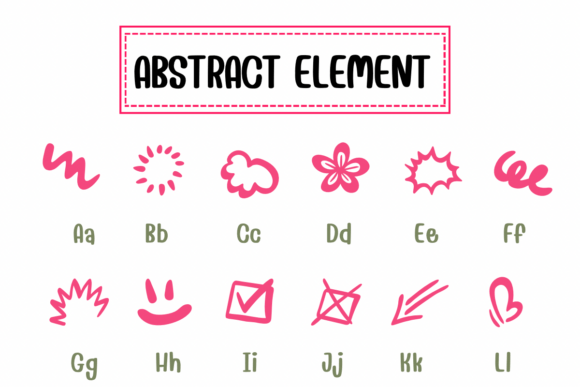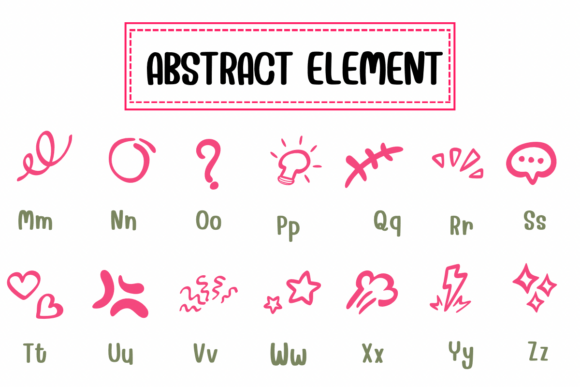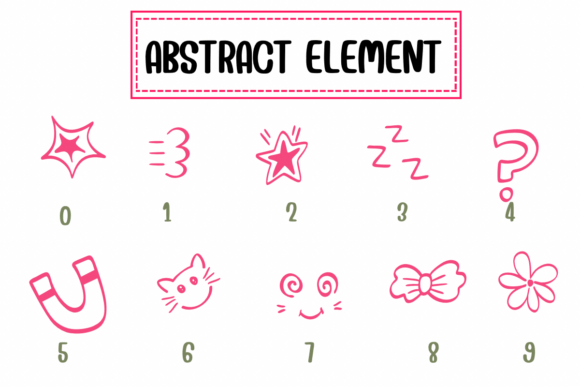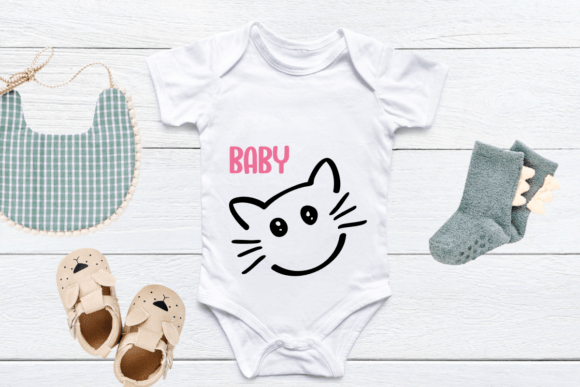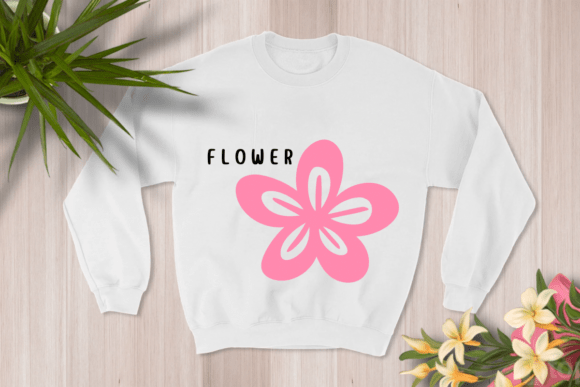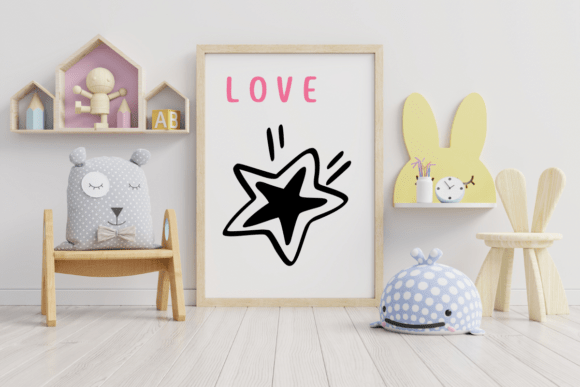
Unlocking Creativity with the Abstract Element Font
Have you ever stared at a blank canvas, trying to come up with the perfect design for your next creative project? The blank page can be daunting, but what if you had a tool that could spark your imagination and bring your ideas to life? For designers and crafty individuals, the right font can be the missing piece that elevates their projects from ordinary to extraordinary.
Enter the Abstract Element Font, a unique dingbats font with an abstract theme that’s perfect for adding a touch of whimsy and personality to your designs. This versatile font is ideal for wedding invitations, DIY projects, crafts, decorations, logos, and many other creative endeavors. With the Abstract Element Font, you’ll be able to express your creativity and bring your unique vision to life.
Abstract Element Font Key Features
- Unique Characteristics: Features a unique blend of geometric and organic elements, resulting in a distinctive and eye-catching visual style.
Designer Review: Abstract Element Font
Overall, I think Abstract Element Font is a visually striking choice for digital interfaces. ✨ The unique blend of geometric shapes and abstract forms creates a captivating and modern aesthetic. The font is particularly effective in large-scale applications, such as titles or headings, where its bold and dynamic personality can truly shine.
One of the standout features of Abstract Element Font is its versatility. ✨ It can be used to convey a sense of excitement and energy, while also being sophisticated and refined. The font’s abstract nature makes it easy to pair with a wide range of colors and backgrounds, allowing designers to create a unique visual identity for their projects.
- ⚠️ In smaller text sizes, the font’s complexity can become overwhelming, making it difficult to read. It’s essential to use this font judiciously, reserving it for headings and titles.
- ⚠️ Abstract Element Font may not be the best choice for body text or long blocks of text, as its abstract nature can make it challenging to follow.
Overall, I would recommend Abstract Element Font for designers looking to add a touch of modernity and sophistication to their projects. While it has its limitations, its unique visual identity and versatility make it a valuable addition to any designer’s toolkit.
Tips for Getting the Most Out of the Abstract Element Font
Use the Abstract Element Font to add a touch of sophistication and elegance to your designs. Experiment with different font sizes, colors, and styles to create a unique look.
Combine the Abstract Element Font with other design elements, such as bold colors and geometric shapes, to create a visually striking design.
The Abstract Element Font is ideal for:
- Corporate branding and identity
- Marketing materials, such as brochures and flyers
- Editorial design, such as magazines and newspapers